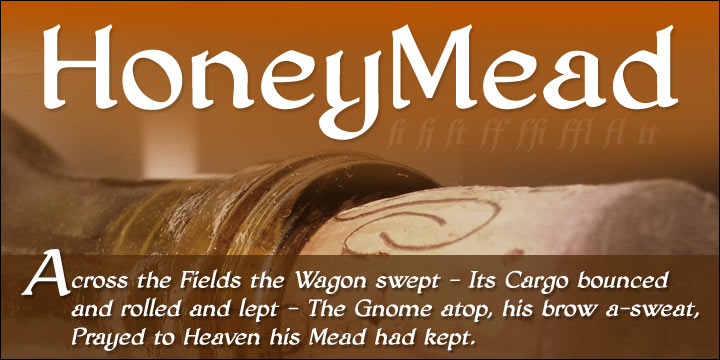
HoneyMead BB Font is perfect for rustic branding, honey product packaging, artisanal food labels, organic bakery signage, farm-to-table restaurants, craft brewery materials, meadery branding, and wholesome natural product designs.
What makes HoneyMead BB Font exciting is its warm artisanal character that evokes the sweetness of honey and the rustic charm of traditional meadmaking through flowing letterforms and organic appeal. This delightful typeface features handcrafted construction, honey-inspired details, and wholesome personality that captures the essence of natural sweetness and traditional craftsmanship, making it ideal for brands seeking to communicate authenticity, natural quality, and artisanal excellence with rustic charm.
The HoneyMead BB Font family includes Regular and Bold weights, each maintaining the characteristic honey-sweet charm and artisanal authenticity that define this distinctive typeface's wholesome personality and natural appeal.
HoneyMead BB Font Free Download offers designers access to a typeface that perfectly captures the essence of artisanal sweetness and natural craftsmanship. This charming font brings authentic rustic aesthetics to contemporary projects, making it essential for honey producers, artisanal food brands, and organic businesses targeting audiences who value natural products and traditional craftsmanship. The font's handcrafted construction and honey-inspired details ensure immediate recognition of quality and authenticity while its distinctive character creates warm emotional connections among consumers seeking natural, wholesome products. Whether designing honey jar labels, organic food packaging, or farm-to-table restaurant materials, this font delivers the rustic authenticity and natural sweetness that health-conscious consumers expect. Its artisanal foundation and natural charm make it indispensable for projects celebrating traditional food crafts, organic agriculture, and the timeless appeal of honey-sweetened natural products, ensuring communications resonate with audiences who appreciate the simple pleasures of authentic, naturally-crafted foods and beverages.